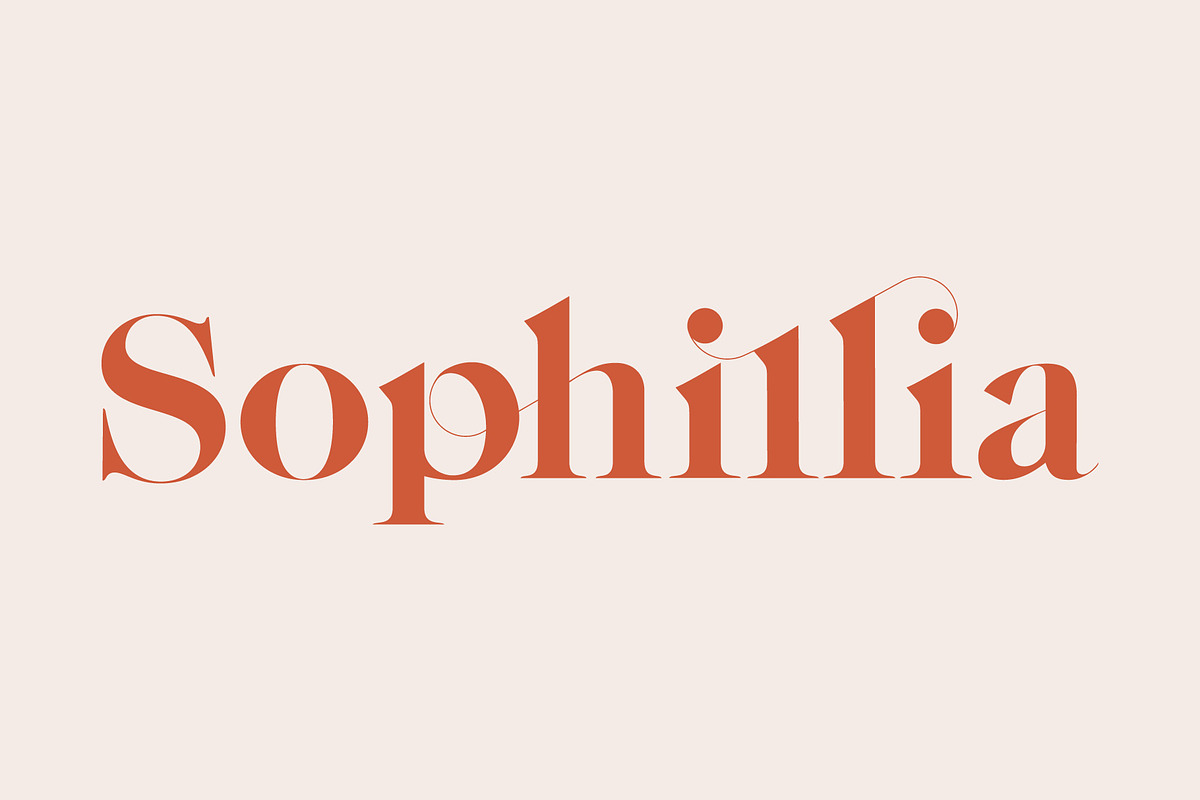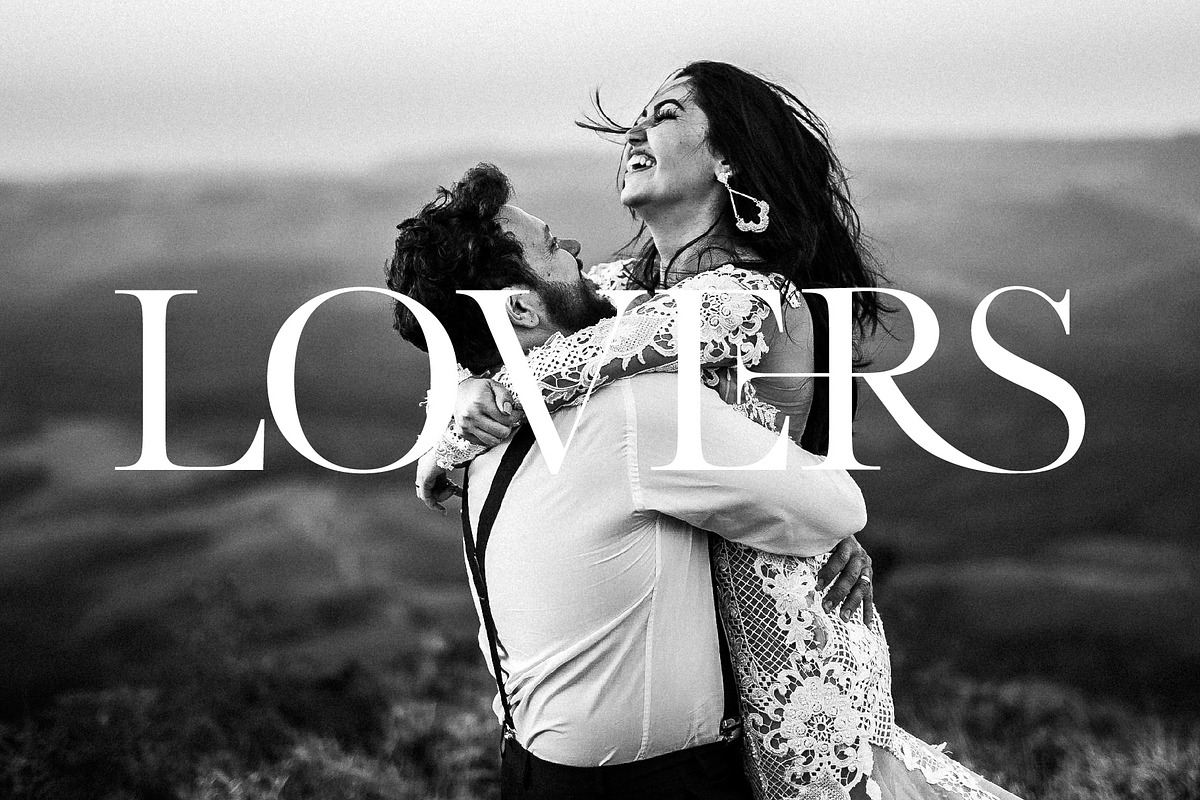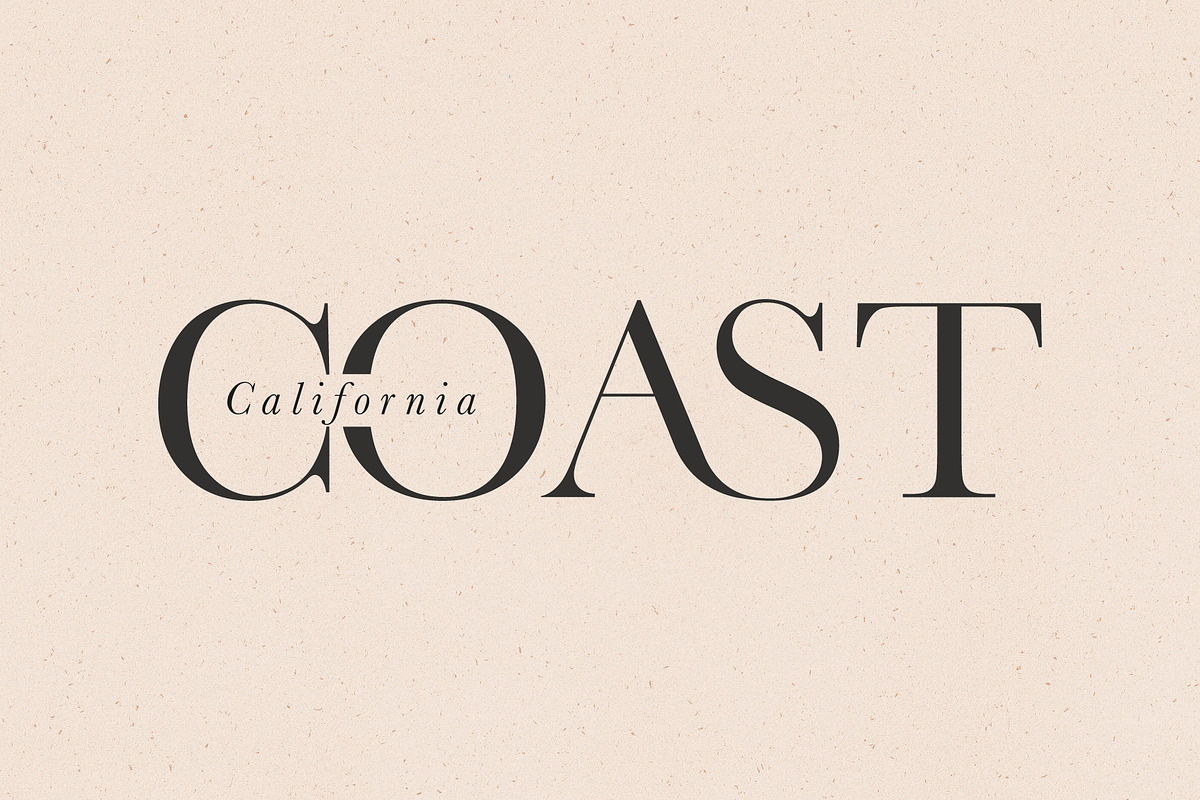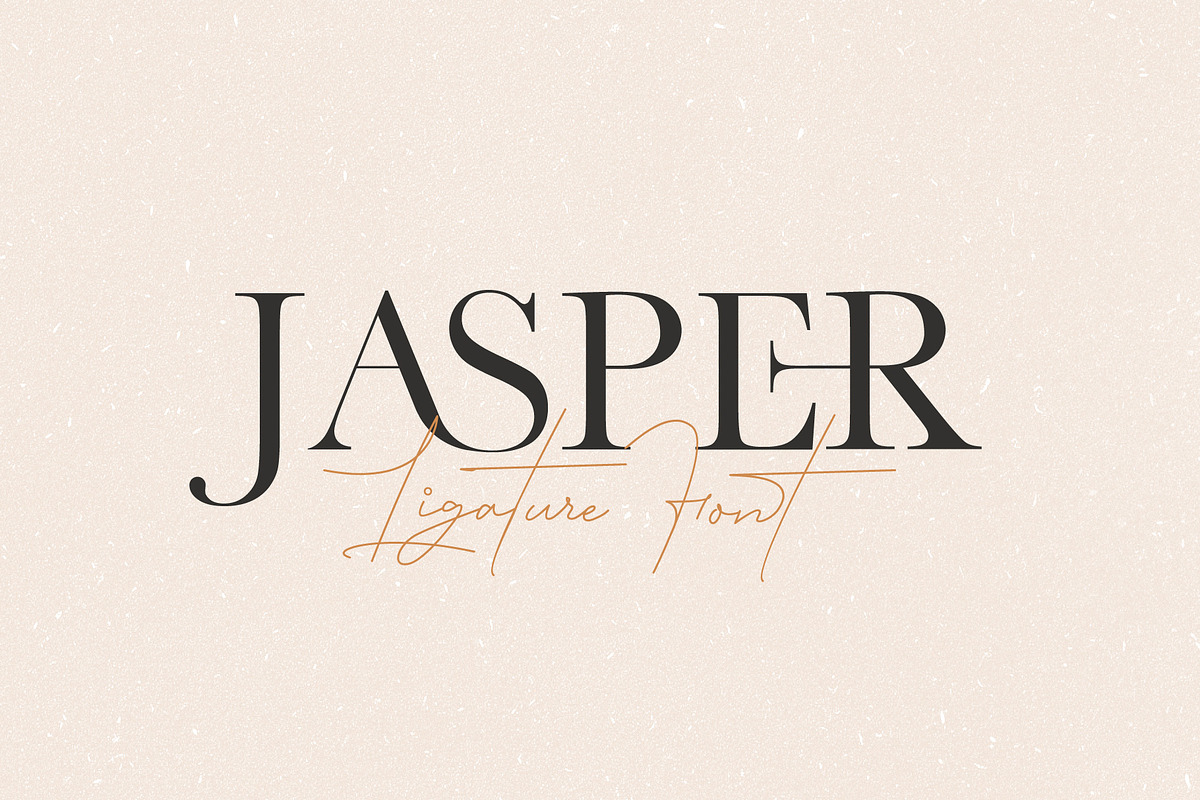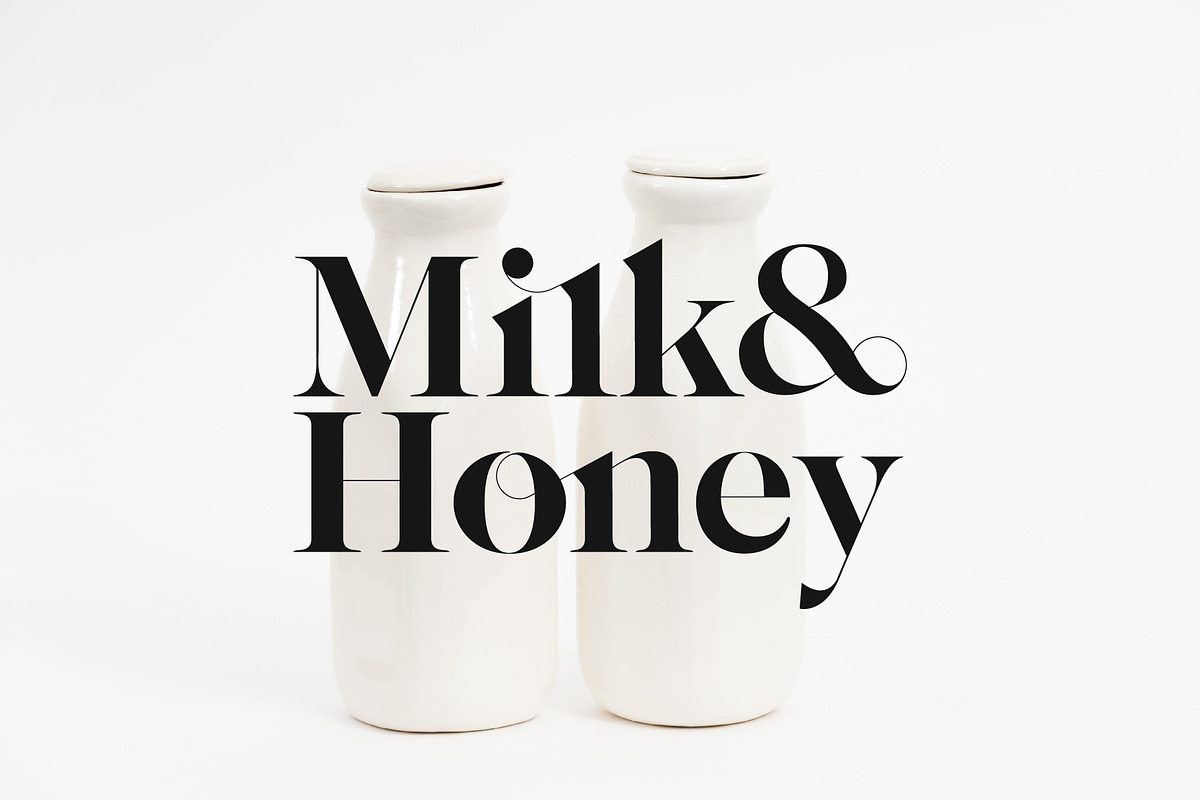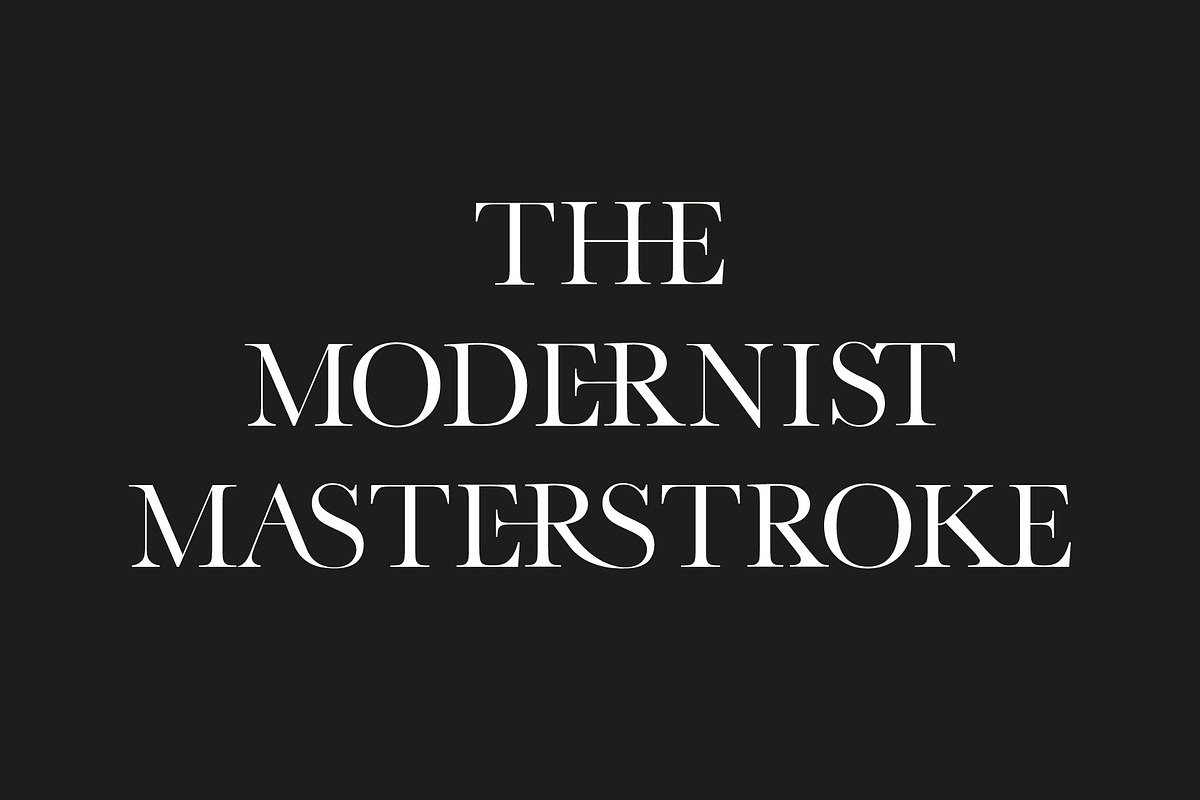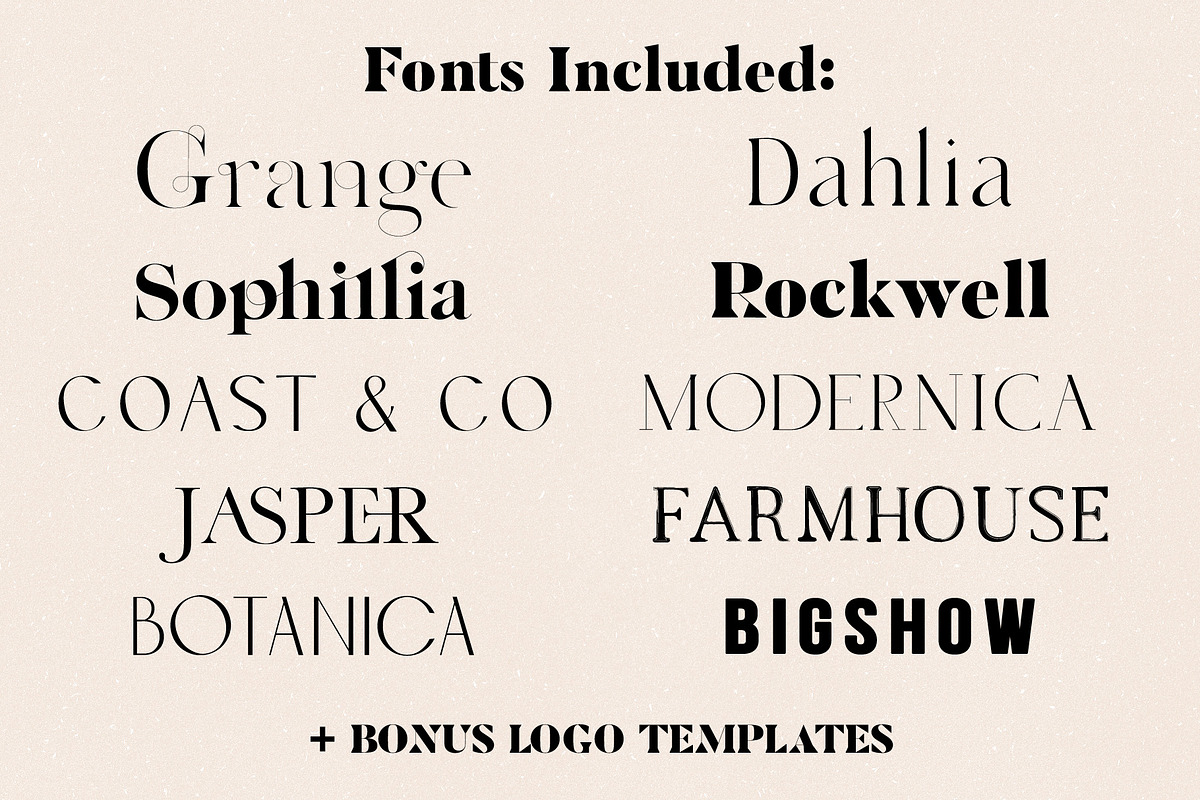
The Modern Font Bundle Vol. 2
After the huge success of my first font bundle, I am happy to introduce the Modern Font Bundle Vol 2! Ten super unique fonts that are guaranteed to stand out while keeping those modern chic vibes. I'm sure you have seen huge font bundles that are full or boring generic fonts. THIS IS NOT ONE OF THEM! Fonts like Sophillia, Jasper & Grange are full of interesting ligatures that can't be found anywhere else while Modernica, Coast & Co and Botanica and modern takes on past era's. There are plenty of bonus logos thrown in also in EPS and AI formats. For more detailed descriptions of individual fonts, look below.
Why The Modern Font Bundle Vol. 2 is worth a look
The Modern Font Bundle Vol. 2 by Tropical Type fits naturally into Branding, posters, packaging, typography.